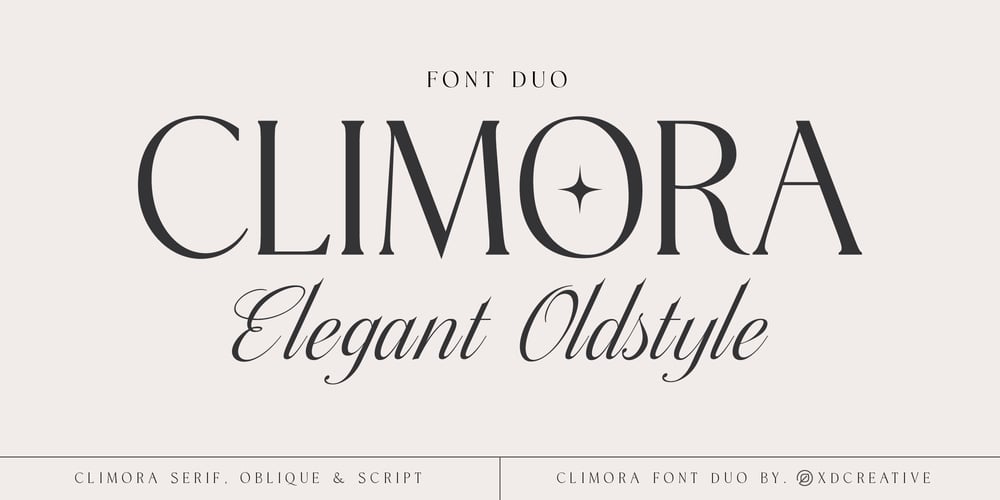
Climora Duo
Climora Duo font
Climora Duo Font Family was designed by Faldy Kudo and published by XdCreative. Climora Duo contains 15 styles and family package options. Introducing Climora Duo CLIMORA SERIF is a typeface with a feminine taste, with a touch of old style paired with an elegant Climora Script its a perfect combination for your various design needs.CLIMORA Serif has 14 style and 7 weights, – from Thin to Bold and Matching oblique. and 1 Elegant Climora Script that supports multiple languages.Hope you enjoy with Climora FamilyThank you